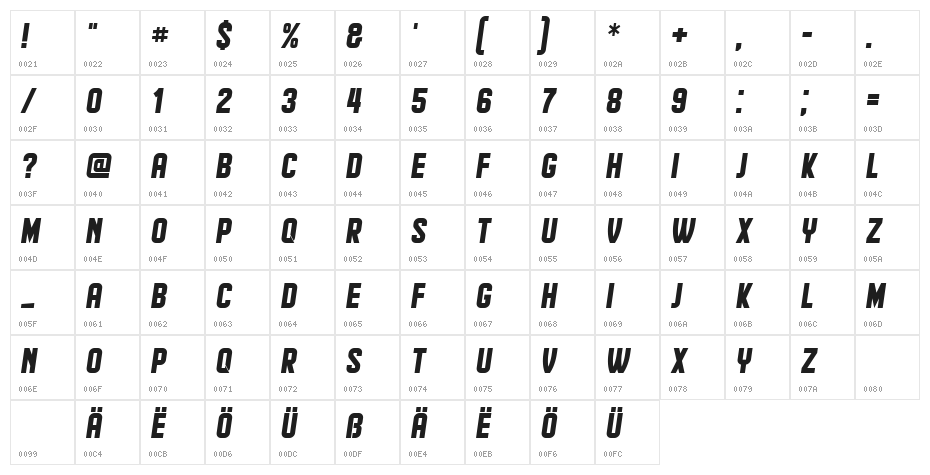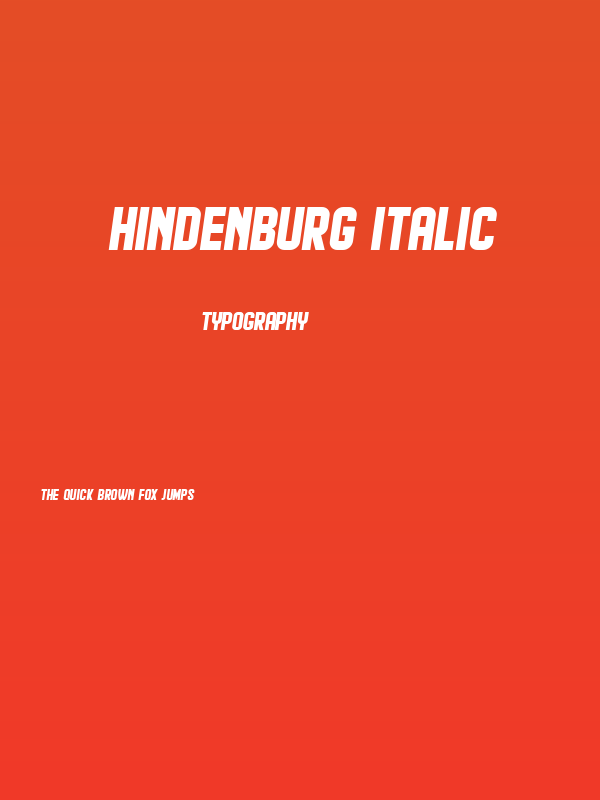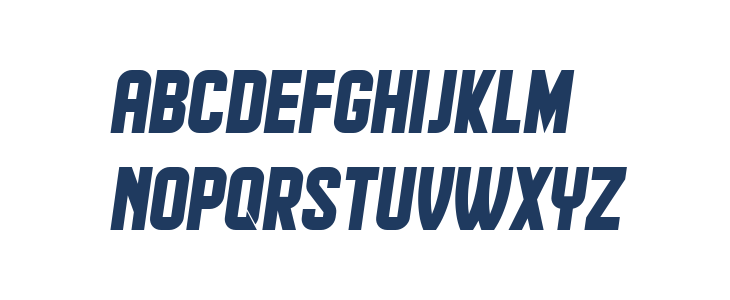
Hindenburg Italic Font
Hindenburg Italic Description
This font exhibits a bold, italicized style with a strong, assertive presence. The characters are slightly condensed, giving a compact and efficient appearance. The strokes are thick and consistent, providing a uniform look across all characters. The slanted design adds a dynamic and energetic feel, making it suitable for attention-grabbing headlines and impactful statements. The numbers and special characters maintain the same bold and slanted characteristics, ensuring consistency throughout. The overall design is modern and sleek, with a touch of aggression that makes it stand out.